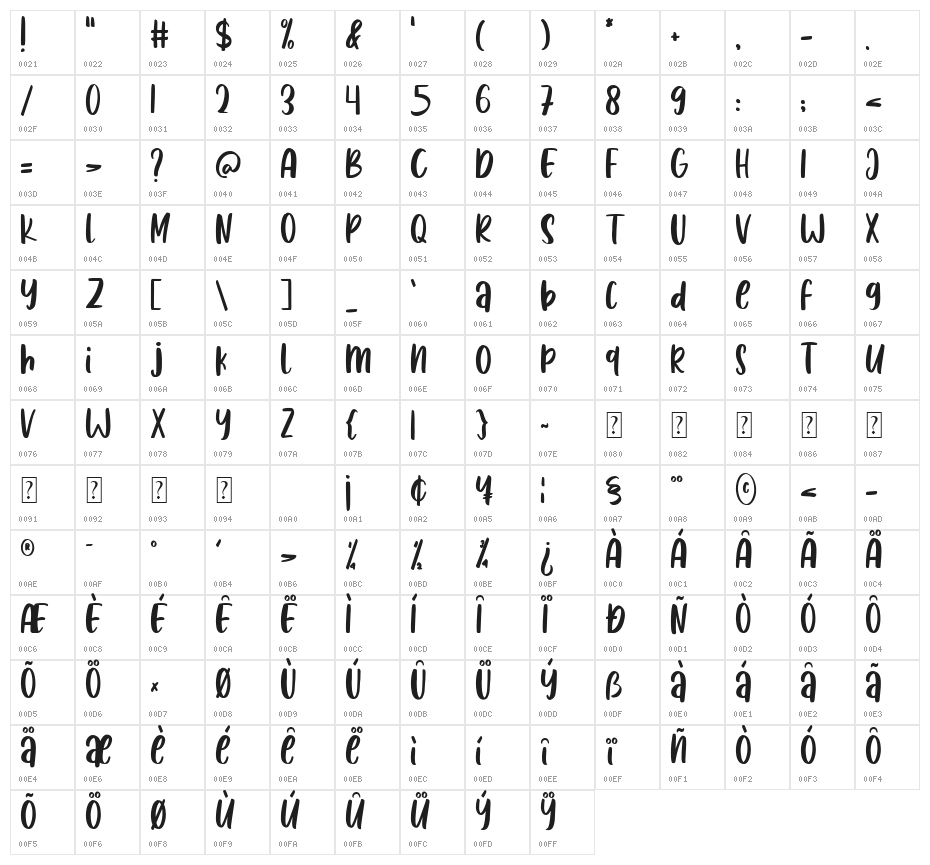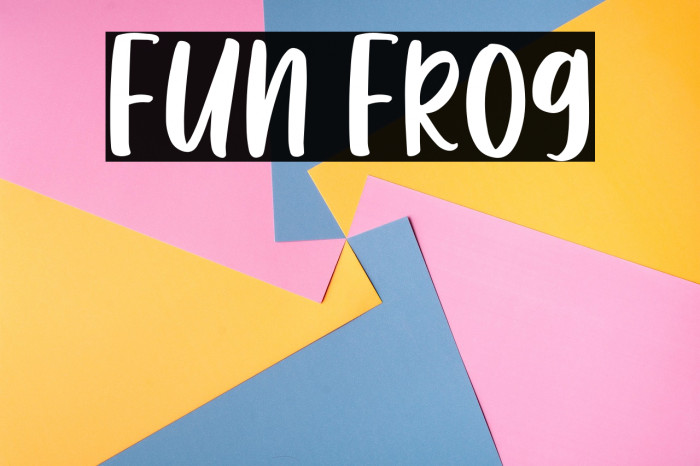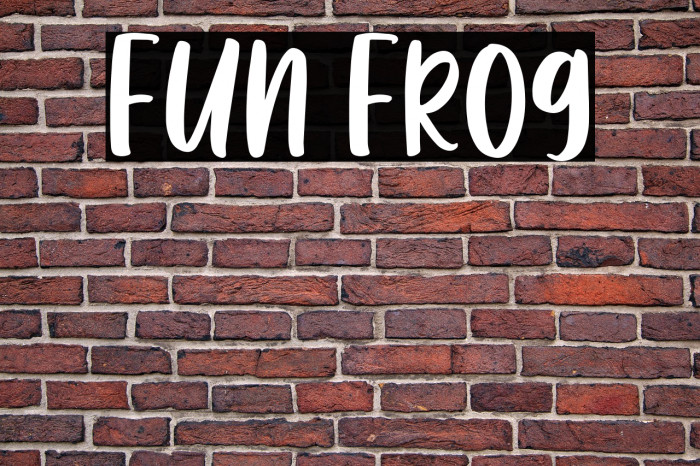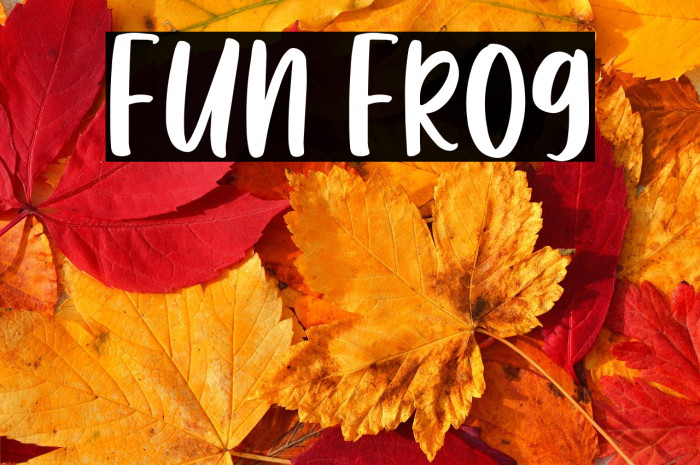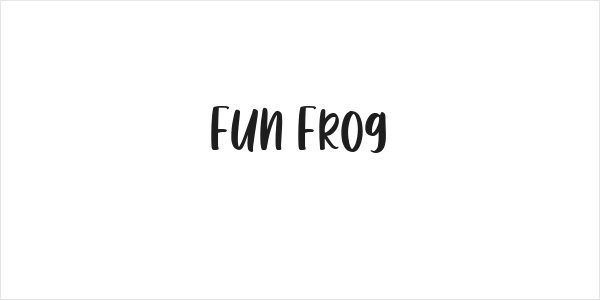
Fun Frog Font
Fun Frog Description
This playful and energetic font features bold, rounded characters with a hand-drawn aesthetic. The uppercase and lowercase letters maintain a consistent style, with a lively and informal appearance. The numbers and special characters complement the letters, maintaining the same whimsical and friendly vibe. The strokes are thick and uniform, giving the font a strong presence while retaining a casual feel. This font is perfect for projects that require a fun and approachable look, such as children's books, playful branding, or creative posters.
| Proposed Projects | Ideal for children's books, playful branding, creative posters, and informal invitations. |